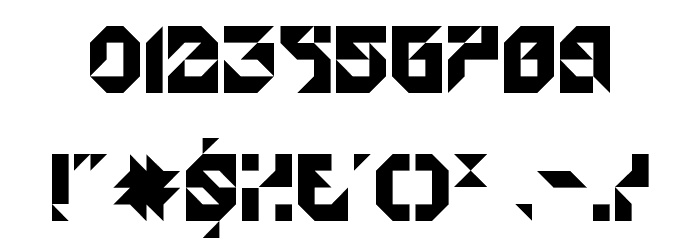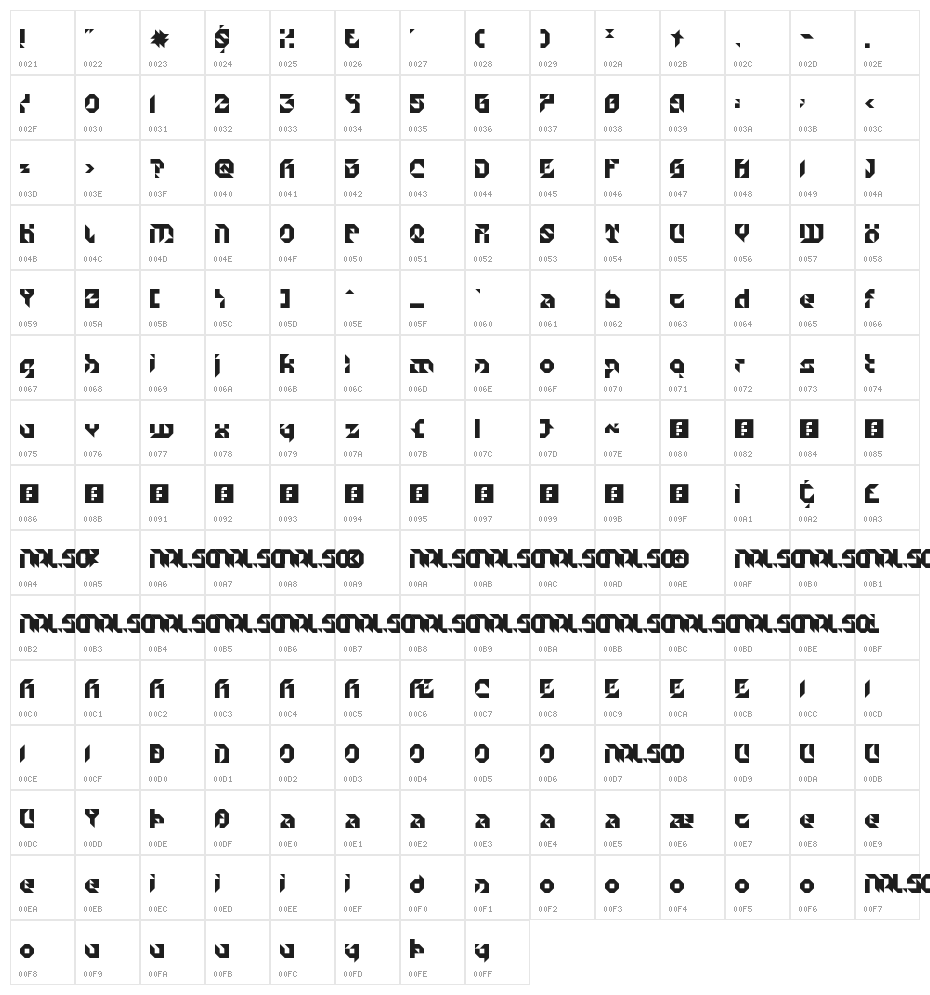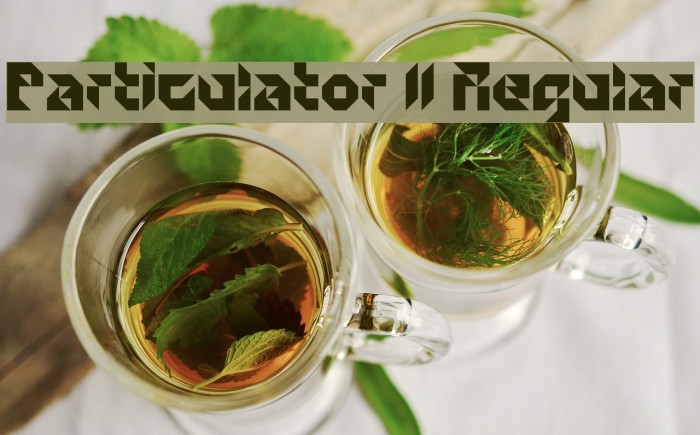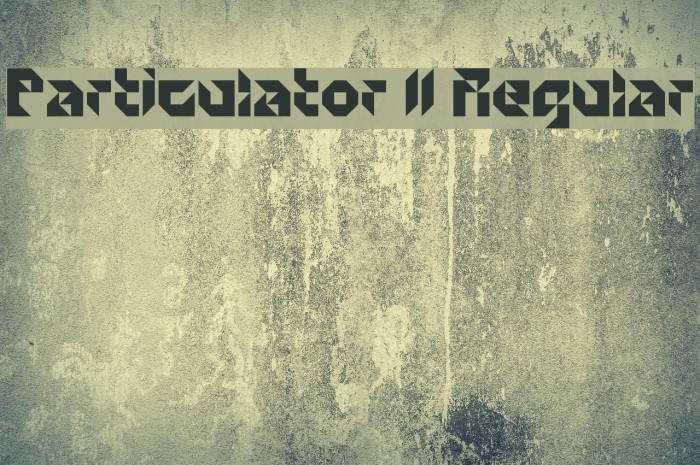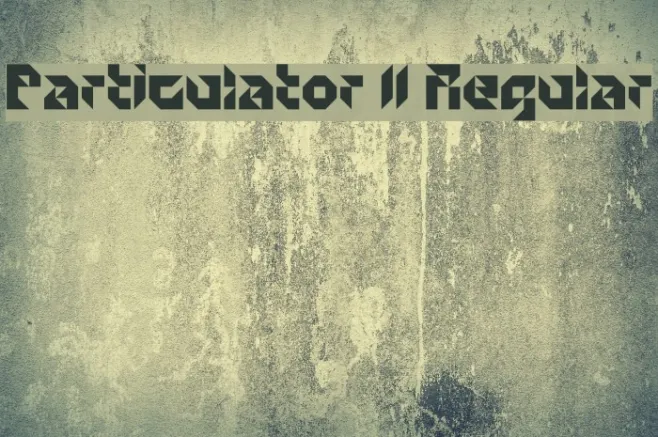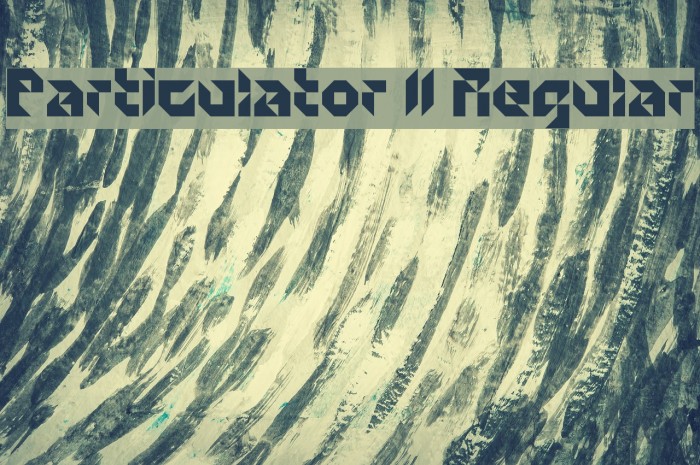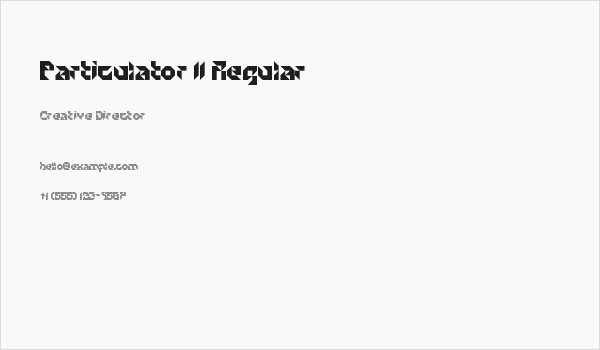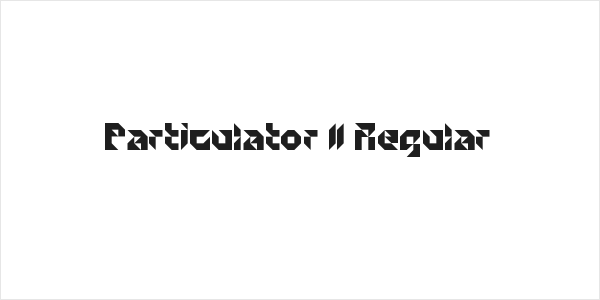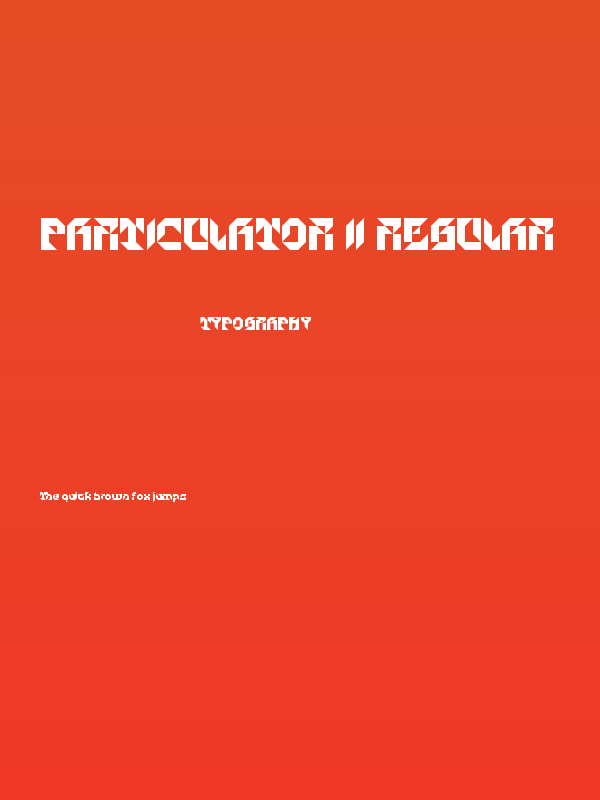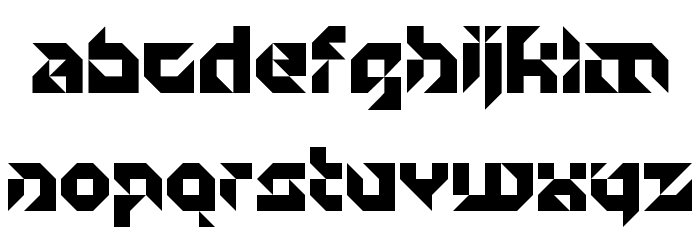
Particulator II Regular Font
Particulator II Regular Description
This font features a bold, geometric design with sharp angles and a futuristic aesthetic. Each character is constructed with a series of angular cuts and block-like shapes, creating a highly stylized and modern appearance. The uppercase and lowercase letters maintain a consistent style, emphasizing symmetry and uniformity. Numbers and special characters are equally bold and angular, fitting seamlessly into the overall design. The font's unique structure makes it stand out, offering a striking visual impact.
| Proposed Projects | Ideal for sci-fi themed projects, modern branding, video game titles, and tech-related designs. |